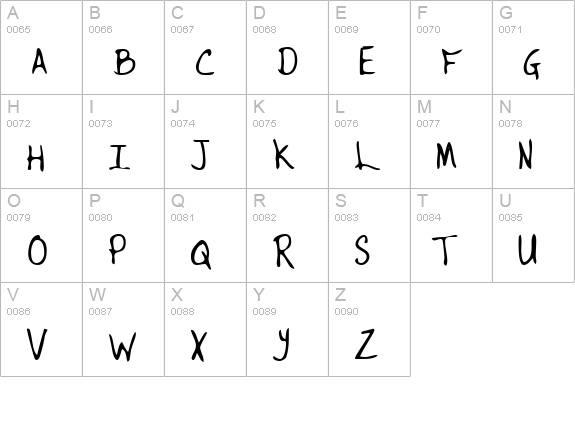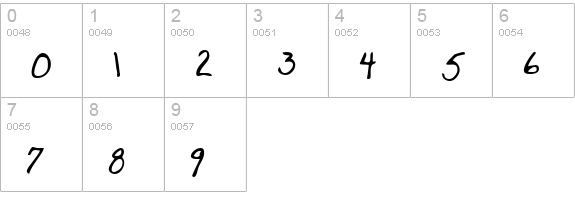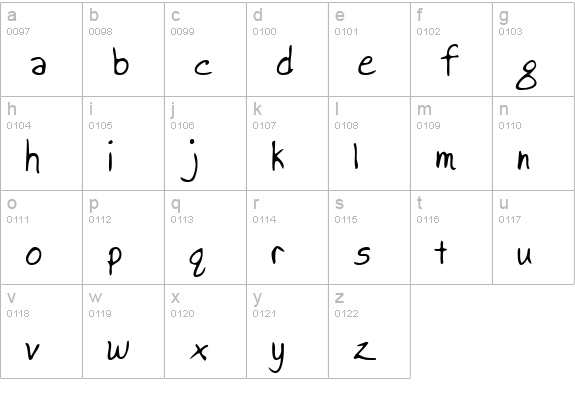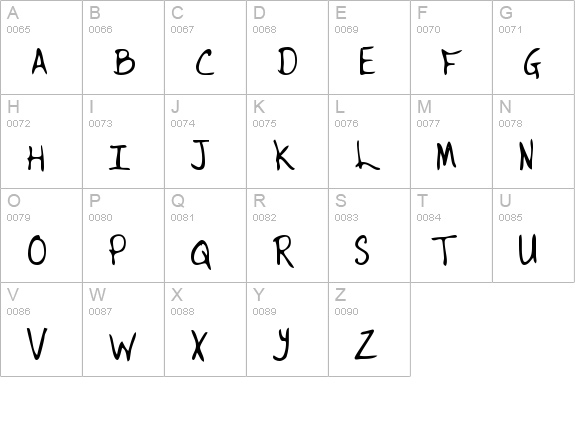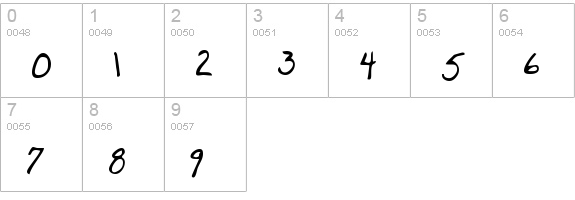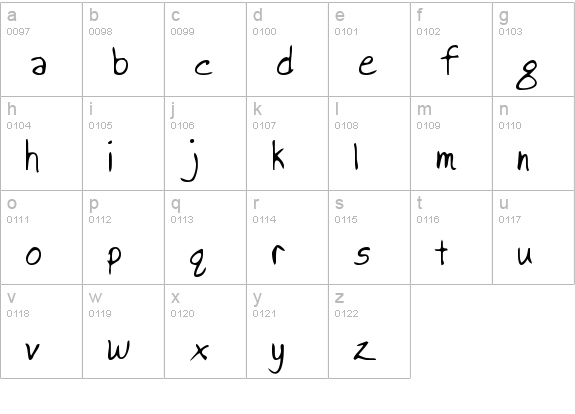
BrooksHand Regular Font Details
BrooksHand Regular is the standard, neutral variant in the BrooksHand typeface family \xE2\x80\x94 well suited to general body text, paragraphs, and standard typographic work.
BrooksHand Regular font is a charming and versatile typeface that embodies a perfect balance of elegance and playfulness. With its smooth lines and unique character shapes, this font exudes a sense of sophistication while maintaining a friendly appeal. Designed to be highly legible and suitable for a wide range of design projects, BrooksHand Regular is the perfect choice for branding, invitations, posters, and more. Its handwritten style adds a personal touch to any design, making it stand out from the crowd. Best of all, BrooksHand Regular font is available for free download at FontsMarket.com. Now you can enhance your projects with this beautiful and expressive typeface without any cost. Don't miss out on the opportunity to add this stunning font to your collection and elevate your designs to the next level.